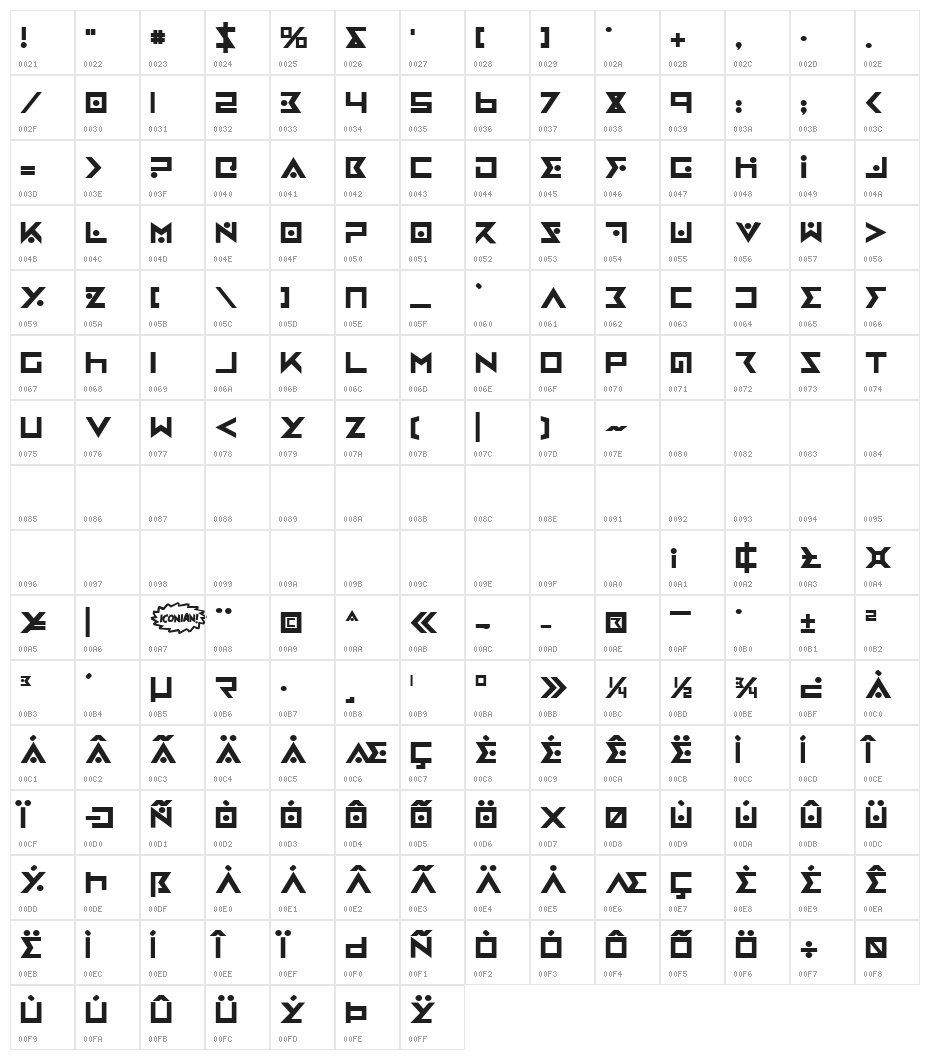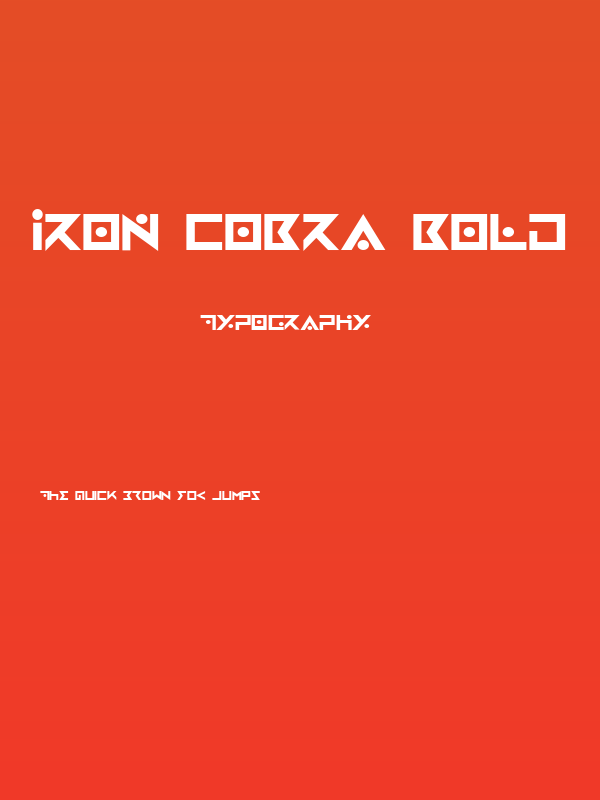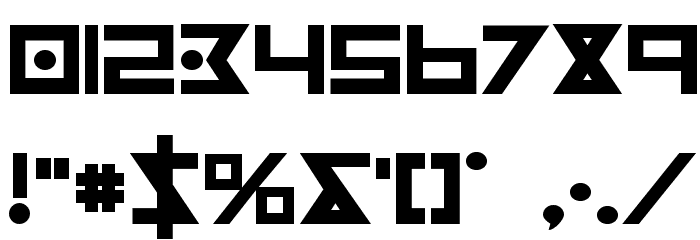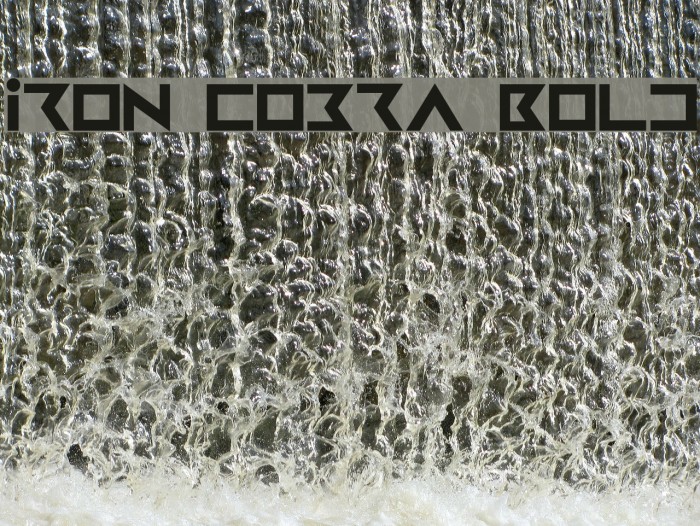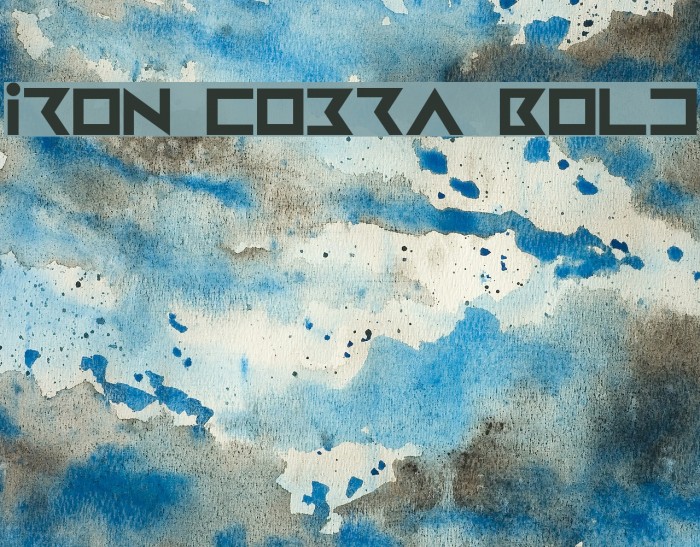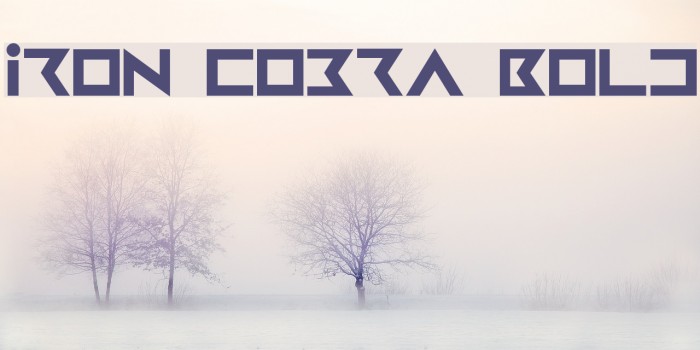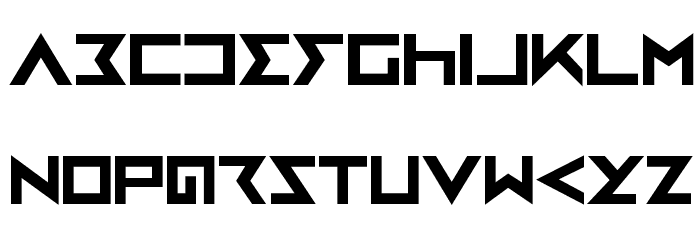
Iron Cobra Bold Font
Iron Cobra Bold Description
This font features a bold, geometric design with sharp angles and distinct shapes, creating a futuristic and edgy appearance. The characters are constructed with a combination of straight lines and triangular elements, giving them a unique and striking look. The uppercase and lowercase letters maintain a consistent style, with some characters incorporating circular cutouts or dots for added visual interest. The numerals follow the same geometric theme, ensuring uniformity across all characters. Special characters are designed with the same bold and angular style, making them stand out. This font is ideal for projects that require a modern and impactful aesthetic.
| Proposed Projects | Ideal for sci-fi themed designs, video game titles, posters, and branding that requires a modern and edgy look. |